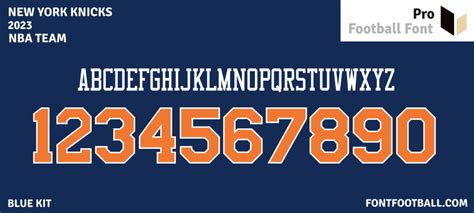
Unveiling The New York Knicks Font
Unveiling the New York Knicks Font
What’s up, basketball fanatics and design lovers! Today, we’re diving deep into something that might seem small but is actually a HUGE part of a team’s identity: the New York Knicks font . Yeah, I know, it sounds niche, but trust me, guys, it’s way cooler than you think. Think about it – every time you see that iconic orange and blue, there’s a specific typeface that screams ‘Knicks’! It’s not just any font; it’s got history, it’s got swagger, and it’s instantly recognizable. We’re talking about the visual heartbeat of one of the most storied franchises in the NBA.
This isn’t just about slapping letters on a jersey; it’s about conveying a legacy. The New York Knicks font has evolved over the years, reflecting different eras and styles, but always maintaining that quintessential New York grit and determination. Whether it’s on the classic home jerseys, the slick road uniforms, or even in the team’s branding and marketing materials, the font plays a crucial role in connecting fans to the team. It’s the silent messenger that tells a story of championships, legendary players, and that unyielding spirit that defines being a Knick.
So, why should you care about the Knicks font? Well, if you’re a designer, it’s a masterclass in sports branding. If you’re a die-hard fan, understanding the font adds another layer to your appreciation for the team’s visual identity. And if you’re just curious about the little details that make big brands stand out, you’re in the right place. We’re going to break down the history, the design elements, and where you can find fonts that give you that authentic Knicks vibe. Get ready to explore the typography that makes Madison Square Garden shake!
A Deep Dive into the Knicks Typography: From Then to Now
Alright, let’s get nerdy and rewind the tape. The New York Knicks font has a history as rich and dynamic as the team itself. It’s not like they just picked a font out of a hat. This typeface has been carefully chosen and sometimes subtly tweaked to represent the team’s image and connect with its fanbase. Think about the early days, the ABA era, and then the golden age of Ewing and Starks. Each period had its own visual language, and the font was a key component. We’re talking about a visual evolution that mirrors the team’s journey through triumphs and, let’s be honest, some tough rebuilding phases.
Back in the day, sports branding was a bit different, but the Knicks always had a certain flair. The original Knicks logos and lettering had a hand-drawn quality, a raw energy that reflected the hustle and bustle of New York City. As the league evolved, so did the team’s visual identity. The most recognizable iteration for many fans, especially those who grew up in the 90s, is the font used during the Patrick Ewing era. This was a bold, blocky, and incredibly strong typeface that just exuded power and confidence. It felt like it could take on anyone, just like that legendary Knicks team. It was sharp, no-nonsense, and perfectly captured the aggressive style of play the team was known for.
But the story doesn’t end there. The Knicks, like any enduring franchise, have gone through rebranding efforts. This means the font has seen its fair share of updates and redesigns. Sometimes these changes are subtle, focusing on modernizing the look, ensuring legibility on digital platforms, or perhaps aligning with a new team aesthetic. Other times, a more significant overhaul might happen. What’s fascinating is how, despite these changes, there’s often a thread of the original design philosophy that remains. Designers are tasked with honoring the legacy while making it feel fresh and relevant for today’s fans.
Understanding these shifts is crucial. It’s about recognizing that a team’s font isn’t static; it’s a living, breathing part of its brand. Each iteration of the New York Knicks font tells a story, reflecting the times, the players, and the spirit of New York basketball. So, next time you see those iconic uniforms or logos, take a moment to appreciate the typography. It’s more than just letters; it’s a piece of Knicks history right there in front of your eyes, guys.
The Iconic ‘Knicks’ Wordmark: Design Elements and Characteristics
Let’s get down to the nitty-gritty, the actual design of the New York Knicks font that makes it so distinctive. When we talk about the ‘Knicks’ wordmark, we’re referring to the specific way the team’s name is written, often seen prominently on jerseys and merchandise. This isn’t just any Arial or Times New Roman, folks. The Knicks wordmark is a custom-designed piece of typography, crafted to embody the essence of the team and the city it represents.
If you’ve seen it, you know it. It’s bold. It’s strong. It has this undeniable presence. A key characteristic is its blocky, sans-serif nature. This means it lacks the little decorative strokes (serifs) you find on fonts like Times New Roman. The letters are clean, geometric, and have a solid, grounded feel. This choice in design directly communicates stability, power, and resilience – all qualities you want associated with a championship-contending team. Think of it as a visual anchor, something that stands firm even in the most intense games.
One of the most striking features is the sharp angles and strong lines . The letters are often constructed with precise, straight edges and distinct corners. This gives the font a modern, almost aggressive edge, fitting for a team known for its physical play and relentless defense. There’s a certain sharpness that cuts through, making it stand out, much like a key player making a game-winning shot.
Another element that defines the New York Knicks font is its kerning and spacing . The way the letters are spaced out – the kerning – is meticulously adjusted to ensure maximum impact and readability. It’s not just about individual letter shapes; it’s about how they fit together as a cohesive unit. This attention to detail in spacing contributes to the overall balanced and powerful appearance of the wordmark. It ensures that when fans see ‘KNICKS’, it’s not just read, but felt .
And let’s not forget the context: the colors . While not strictly part of the font’s design, the iconic orange and blue are inextricably linked. The font is almost always presented in these vibrant hues, further cementing its identity. The contrast and energy of these colors amplify the inherent strength of the typeface.
Ultimately, the New York Knicks font isn’t just a collection of letters; it’s a carefully engineered visual symbol. It’s designed to be powerful, memorable, and intrinsically tied to the identity of one of the NBA’s most legendary franchises. It’s a testament to how typography can play a critical role in sports branding, conveying a legacy of strength, resilience, and that unmistakable New York spirit.
Where to Find the Authentic New York Knicks Font and Similar Typefaces
So, you’ve seen the New York Knicks font , you appreciate its bold design, and maybe you’re wondering,